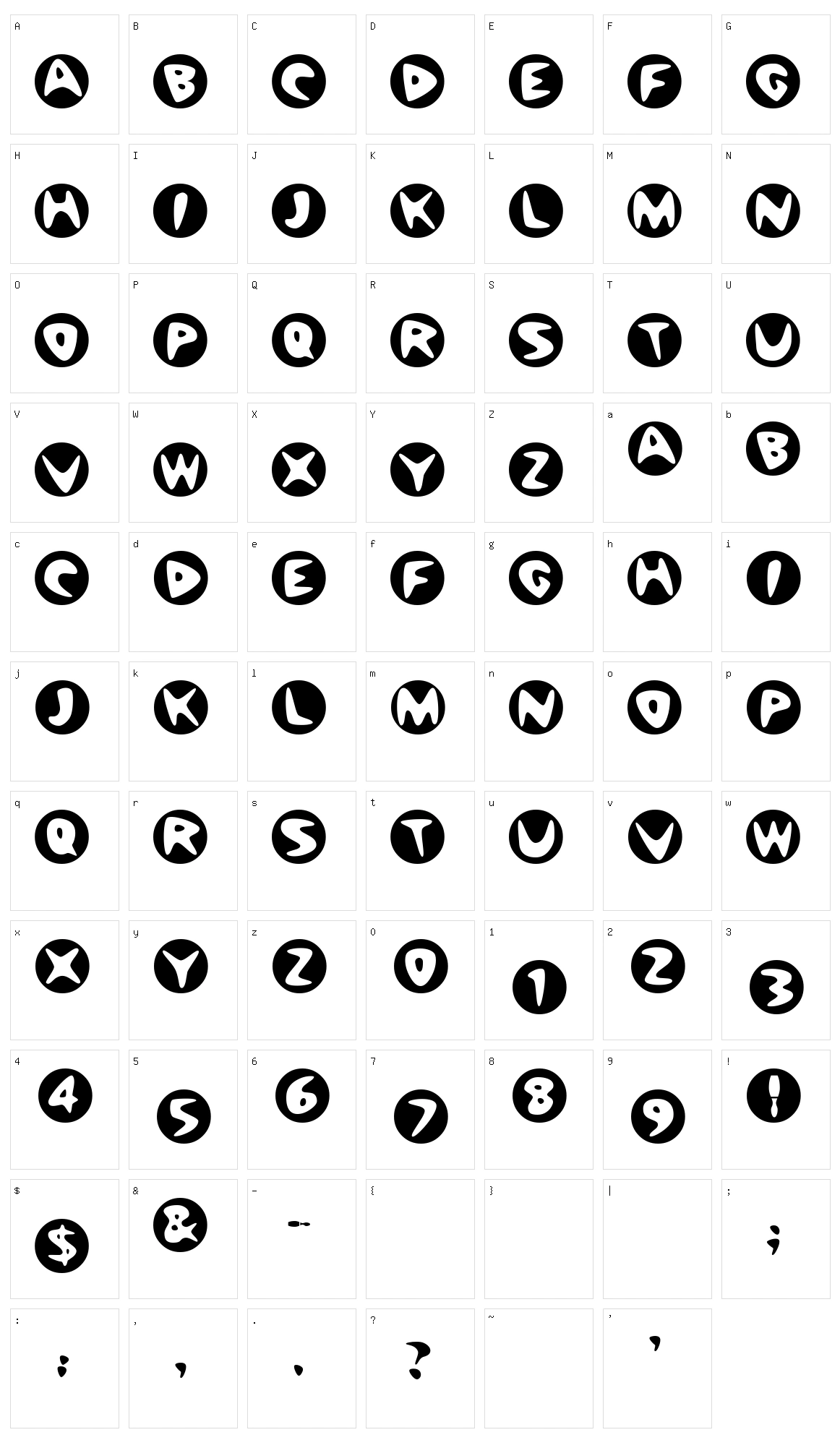
Bowl-O-Rama pays tribute to the classic game of bowling.
Having lived in Milwaukee for 3 years, a one time bowling capitol
in America, I still long for the sound of striking pins and
the occasional polka!